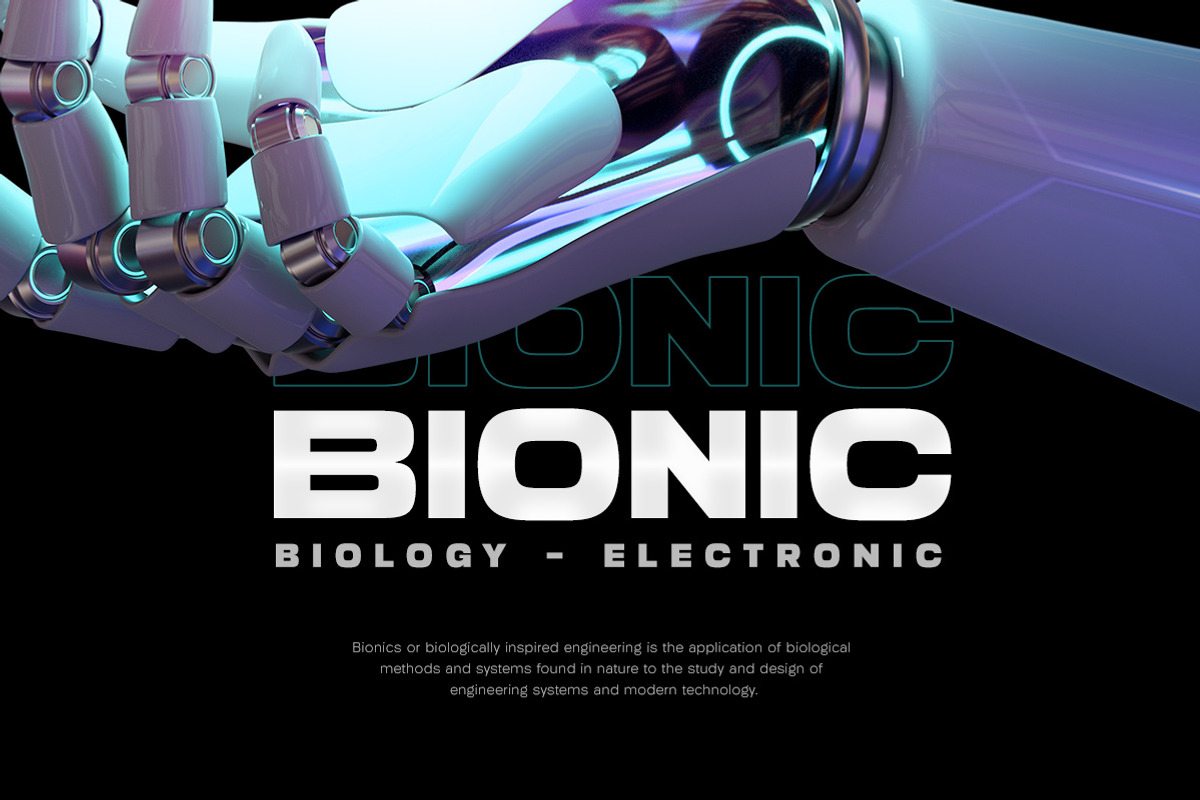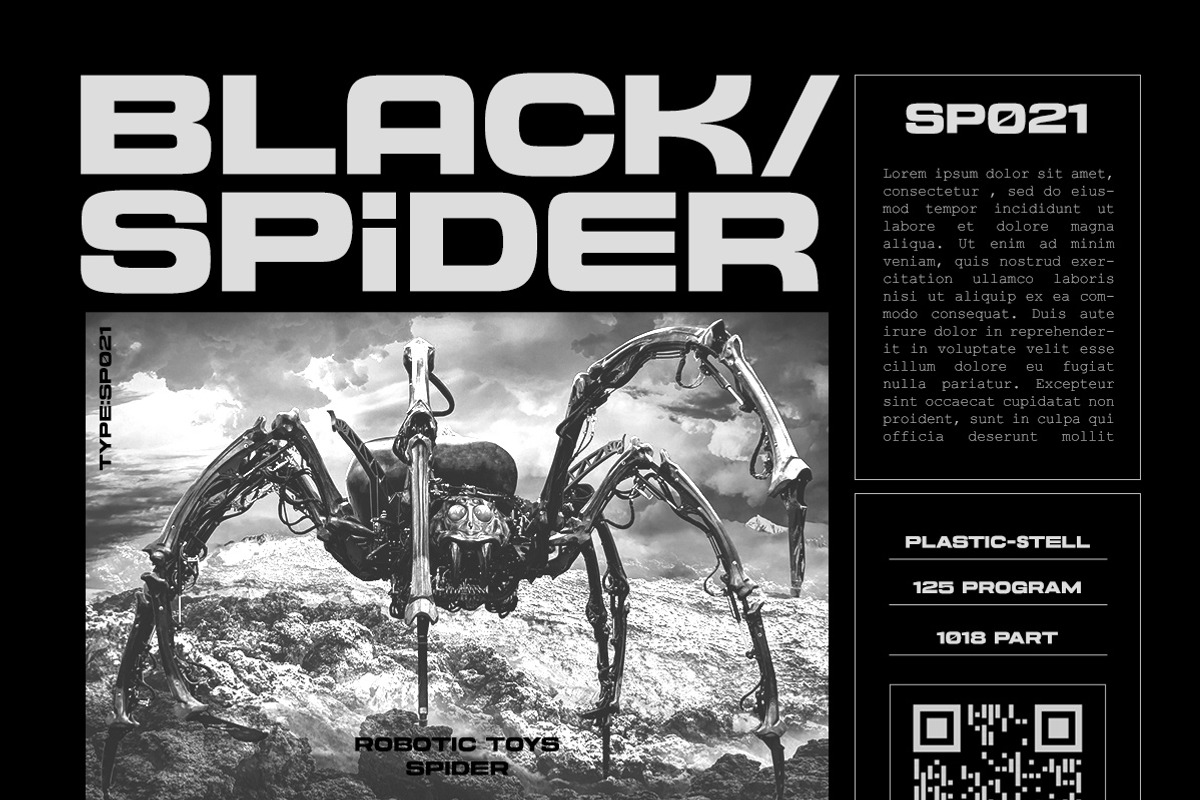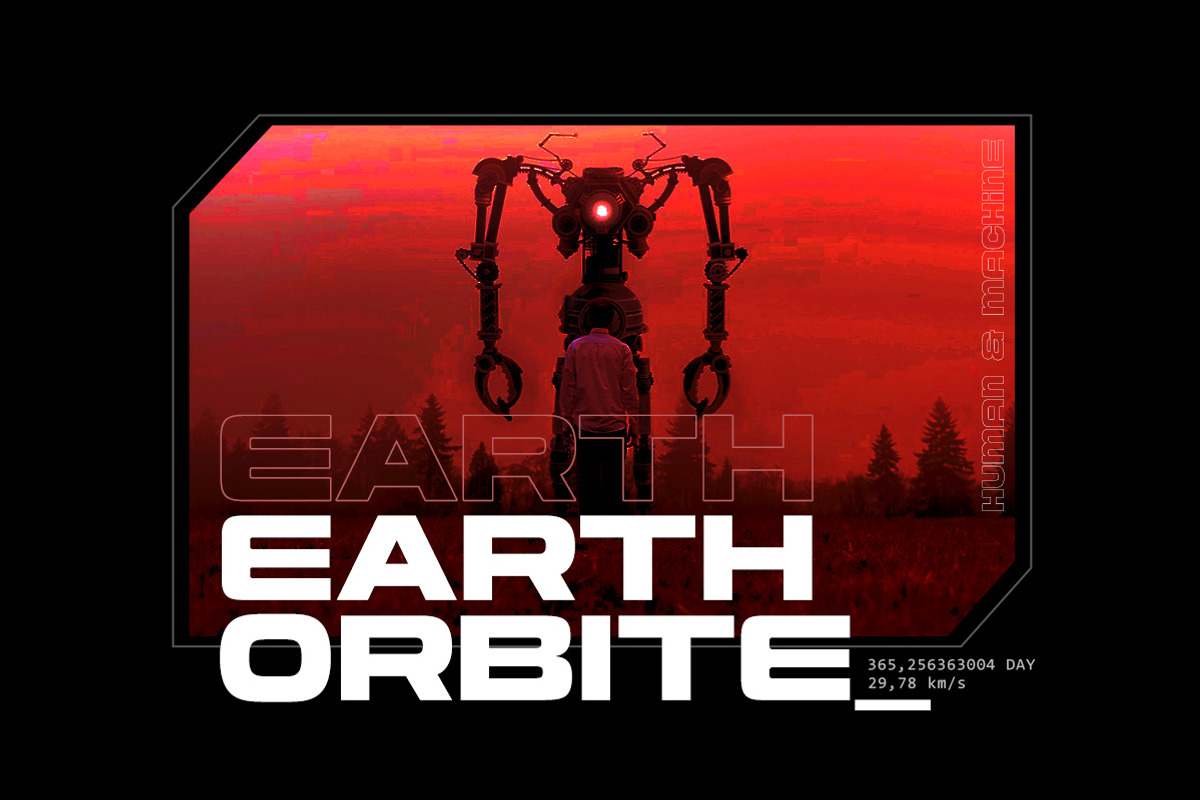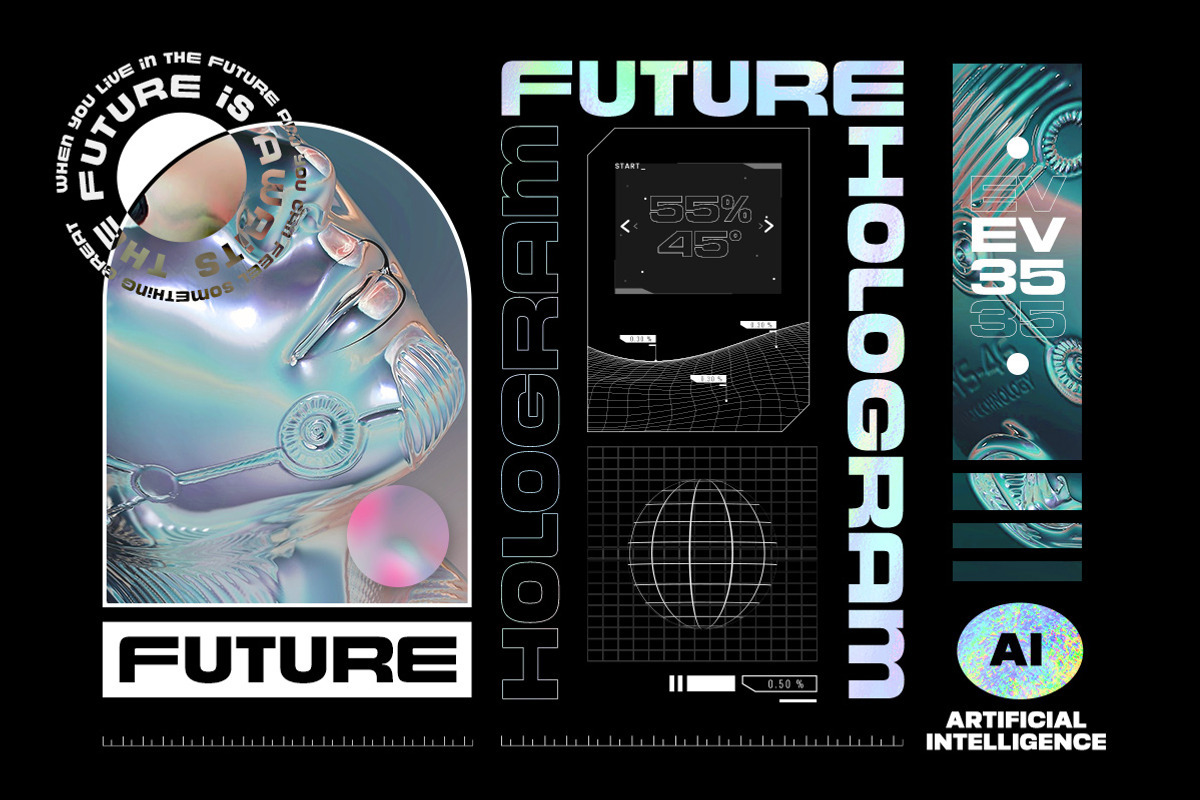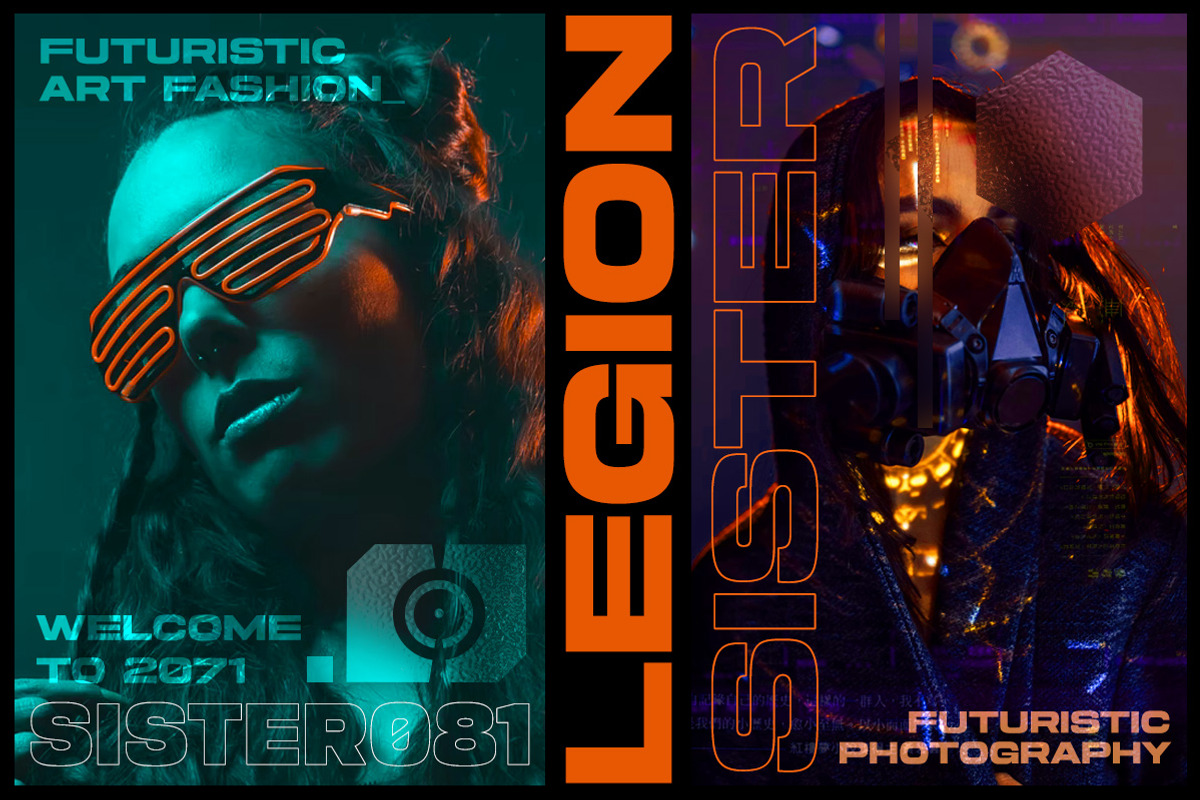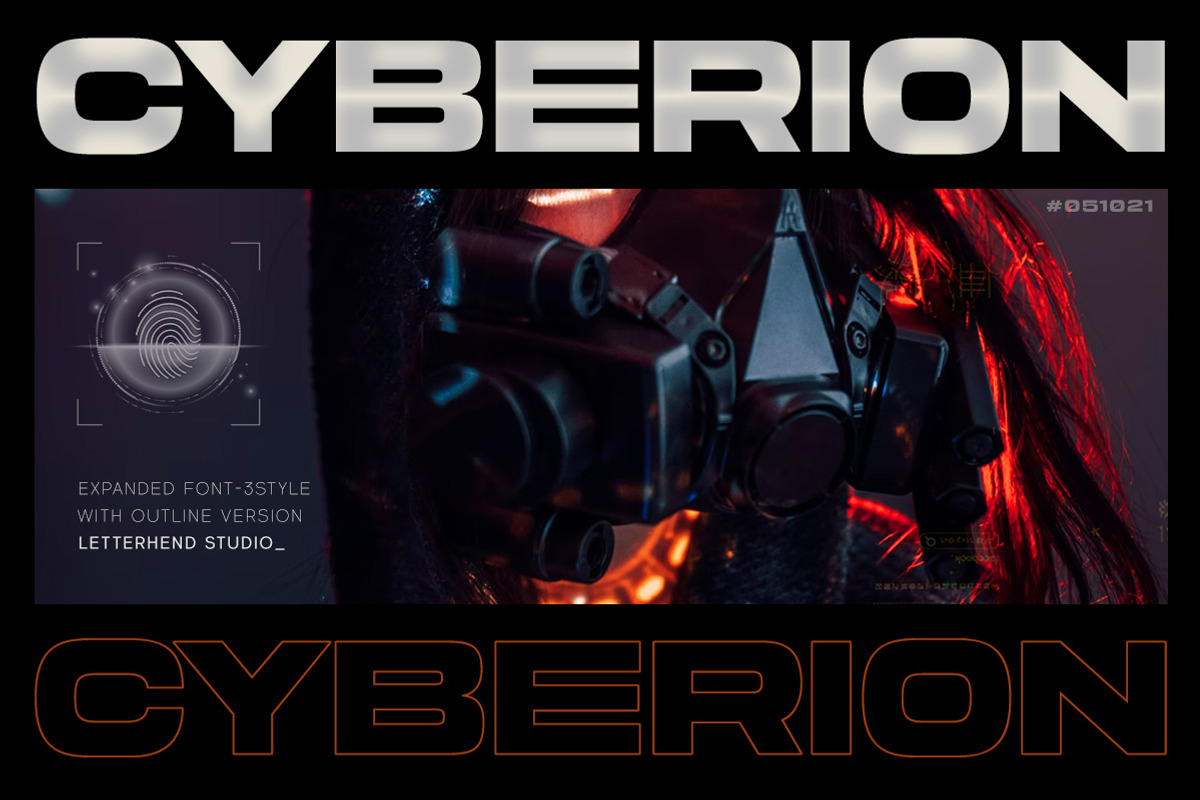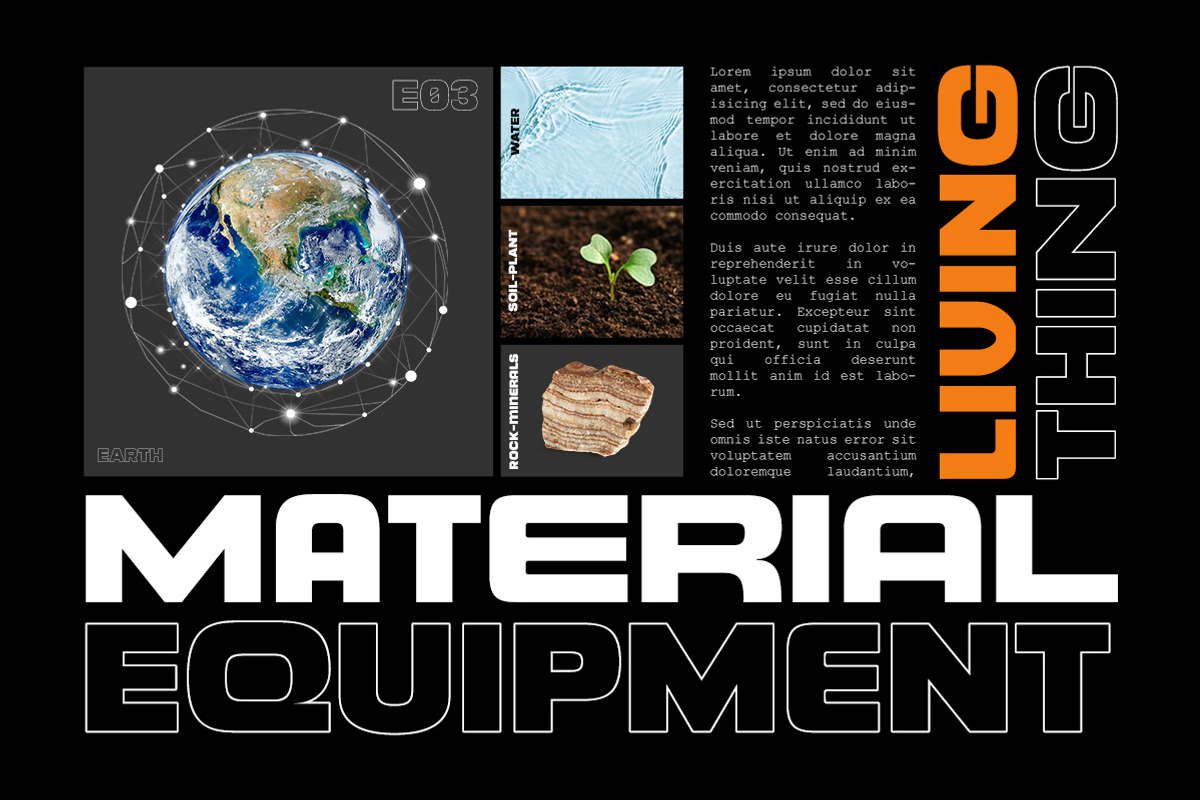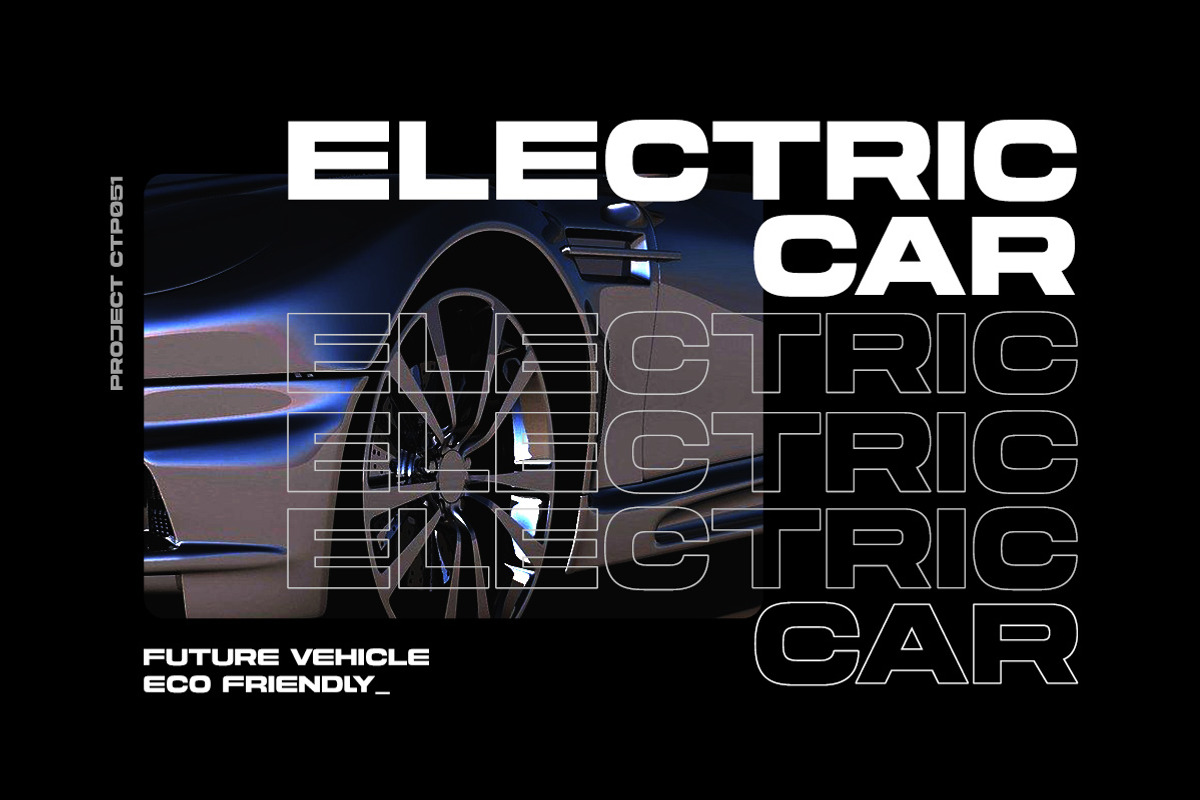
Cyberion - Futuristic Tech Font
Cyberion is a modern futuristic sans serif font. Very suitable to be used for automotive, modern and tech theme. The style make this font looks great and standout for tittle, headline, logo, etc. Perfectly to be applied to the other various formal forms such as invitations, labels, logos, magazines, books, greeting / wedding cards, packaging, fashion, make up, stationery, novels, labels or any type of advertising purpose.
- outline version
- alternates & ligatures